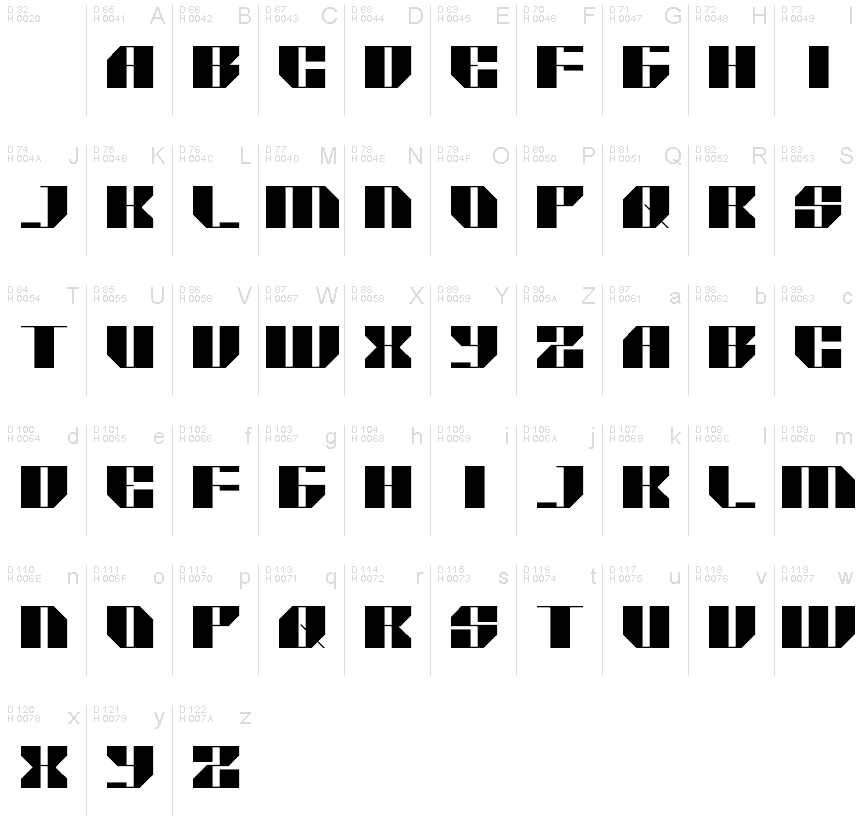
HERMIONE Normal
Hermione is a striking techno font by Uncarving Nation, inspired by technology, mechanics, and digital graphics. Designed with an extraordinary bold weight, this geometric font has a modern, minimalist character with its clean and linear forms. It adds a sense of precision and professionalism to your designs and stands out beautifully against darker backgrounds.
Hermone is perfect for branding projects, for instance, logotypes, posters, business cards and business websites banners, as well as packaging design, apparel, and sports headlines and articles. You can also use it to create a title card for your science fiction documentary, or a typographic art print for your modern interior design.